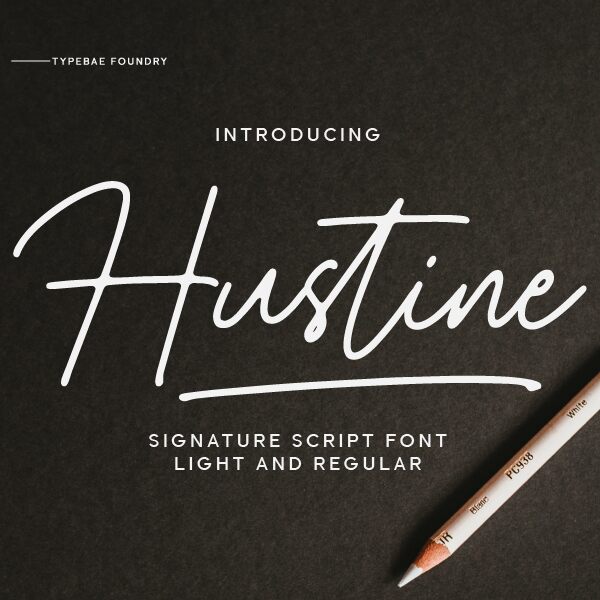
Hustine font, crafted by Typebae Foundry, is a captivating handwritten signature typeface that exudes elegance and personal flair. With its light font design, Hustine offers a sophisticated touch, perfect for creating eye-catching logos, refined invitations, or stylish branding materials. Its fluid strokes and smooth curves convey a sense of grace and individuality.
This free font is ideal for designers seeking to add a personal touch to their projects. Whether you're drafting wedding invitations or crafting unique stationery, the Hustine font ensures your message stands out with charm and finesse. Ready to elevate your design work? Download the Hustine font and infuse your creations with its distinctive style today!